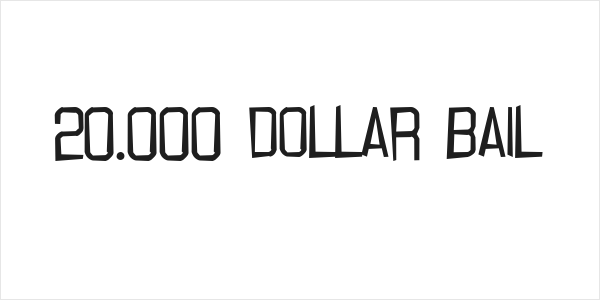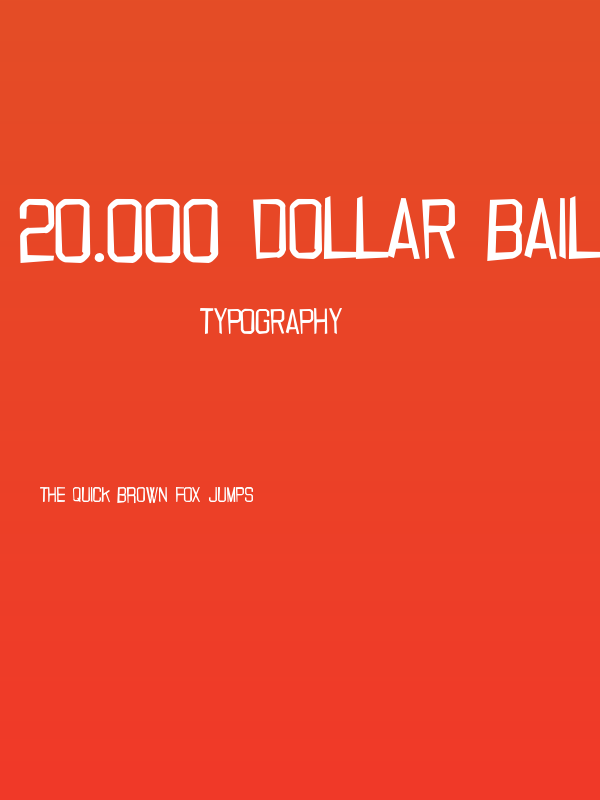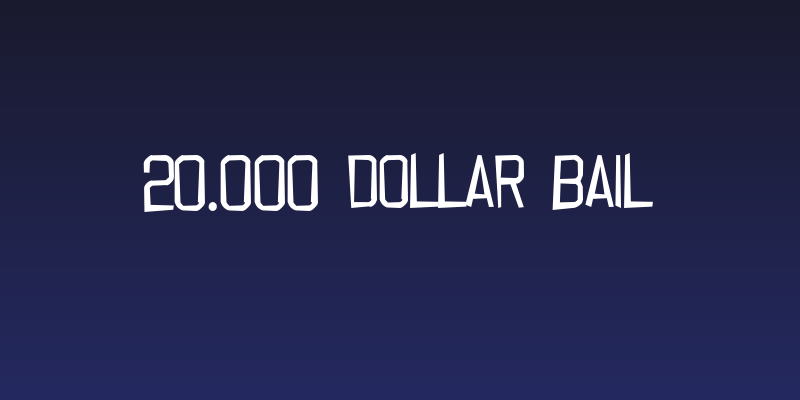
20.000 dollar bail Font
20.000 dollar bail Description
This font features a bold and geometric design with a strong emphasis on straight lines and sharp angles. The uppercase letters are tall and narrow, giving a modern and sleek appearance. The lowercase letters maintain the same geometric style, ensuring consistency throughout the typeface. The numbers are distinct and easy to read, with a uniform height that matches the uppercase letters. Special characters are designed with the same boldness and clarity, making them stand out. Overall, this font exudes a contemporary and professional vibe, suitable for various design applications.
| Proposed Projects | Ideal for branding, headlines, posters, and digital interfaces where a modern and bold statement is needed. |